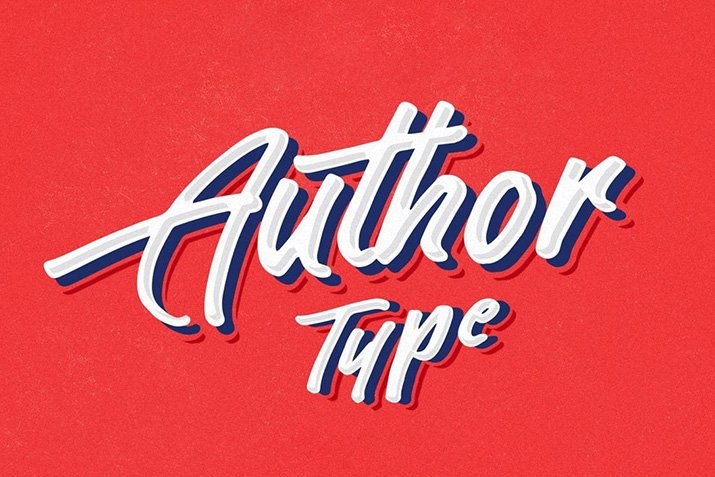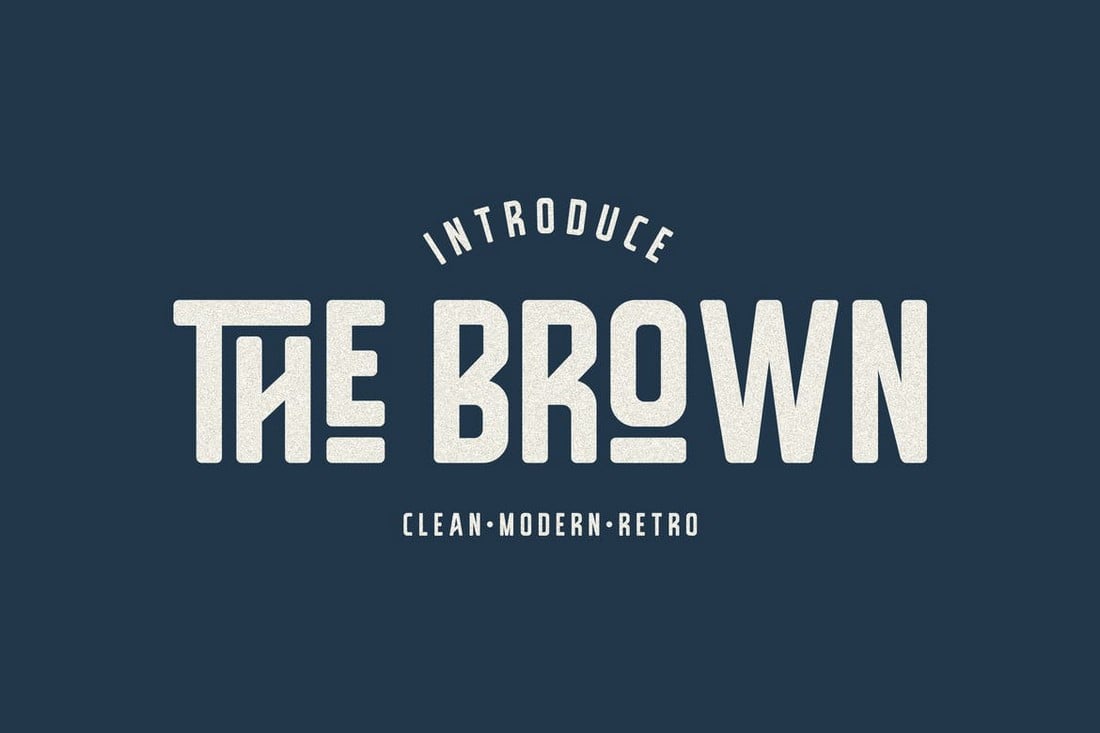
Do you have a great quote or a one-liner that would look great on a t-shirt? Then download a unique font from our handpicked collection and make your own t-shirt design.
Custom-made t-shirts are quite popular these days. In fact, many designers are now making a living by selling their own unique t-shirts online using platforms like Shopify. All it takes is a great font and a clever quote to make a top-selling t-shirt.
The font plays a key role in such t-shirt designs. It needs to look trendy and resonate with the audience to truly grab their attention. You need a font with a unique design to achieve that goal.
We found a few of those unique fonts you can use to craft killer t-shirt designs. These fonts are perfect for making all types of t-shirts from hipster hoodies to casual t-shirts, tank tops, and much more. Have a look.
Stay High is a creative and one of the most unique fonts on our list. It’s perfect for designing a big and attractive title for T-shirts that attract attention. The font comes with a handwritten-style lettering design. Along with 200 glyphs and multilingual support.
The first thought that’ll come to your mind when you see this font is a warm summer breeze. Sunrise Waves is the perfect font you can use to design a stylish summer-themed T-shirt design or even a unique shirt design.
Author Type is a handmade font with a clean and casual design. The unique style of letters of this font makes it stand out from the crowd and so will your T-shirt designs. The font includes both uppercase and lowercase letters as well as swashes for styling.
Featuring a classic vintage-style letter design, this font will allow you to craft trendy T-shirt designs for various niches and purposes. The font comes in 2 different styles that can also be combined to create more original quotes and titles.
Pine Forest is a handcrafted font that comes with a rough textured design. This font is ideal for making badges and titles for T-shirts. It has a very creative lettering design that will add a personalized look to your designs as well.
If you want the t-shirt typography to look strong, and powerful, Adven and Venture should be able to impress you. It will provide a rugged, painted look to your t-shirt. Do check it out.
Sovereign is a bold, and modern typeface perfectly fitting to a pool of branding and packaging designs. Use this font to create beautiful t-shirt designs, labels, logos, billboards, banners, posters, and more.
If you’re looking to get your hands on a solid t-shirt font without having to splurge on premium options, Andora is well worth checking out. It’s a hand-lettered script font that will give your designs an incredibly stylish, and chic look.
Elastico is a solid choice for any project that demands a modern, and stylish look. It’s an excellent contender for your cash if you truly value standing out from the pack. Grab it right now.
Metime is an eye-catching font that will become an indispensable part of your lettering toolkit in no time. It features a handwritten brush aesthetic perfect for t-shirt designs, posters, logos, and more.
Vigrand is a stylish font that features a modern and trendy design. The font comes in 6 different styles ranging from regular to aged, rough, and more. All the typefaces are free to use with your personal projects.
Signation is an elegant handmade script font that comes with a classic vintage design. This font is perfect for designing badges for T-shirts. It’s free to download and use with personal projects.
This is an adorable font featuring a hand-crafted design. It’s perfect for creating titles and headings for unique T-shirts, especially for casual looks and apparel for kids.
You can use this creative font to design titles and text for modern T-shirts. The futuristic look and feel of the font make it perfect for various cyberpunk and retro-themed T-shirt designs.
This is a bundle of three fonts, featuring two sans serif fonts with clean designs and a script font. These fonts pair quite well together when creating stylish designs. You can create titles and subheadings for your T-shirts without having to look for other fonts.
A unique font you can use to design attractive T-shirts for younger audiences. This font will surely give an uncommon look to your T-shirt designs. The font also comes in 2 different styles.
This free font is perfect for everything from T-shirt designs to logo designs and much more. It will help you craft elegant apparel designs. The font is free to use with personal projects.
This font is quite different from others on our list. This one features a set of characters crafted with ornaments, giving each letter a unique look. It’s perfect for minimalist T-shirt designs. The font features lots of alternate characters as well.
Inspired by art-deco design, this font comes with a set of beautiful letters perfect for trendy T-shirt designs. The font is available in light, regular, and bold weights. And it will help add a classic vintage look to your designs.